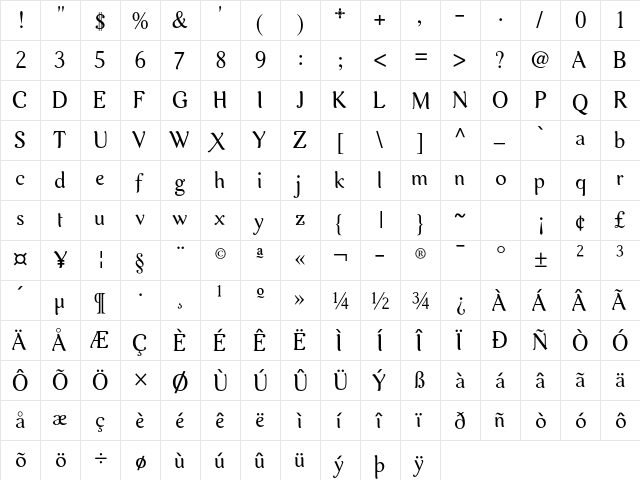
Aurelis ADF No2 Std Regular
| Foundry | Arkandis Digital Foundry. |
| Designer | Hirwen HARENDAL |
Design Context for Aurelis ADF No2 Std Typeface
Aurelis ADF No2 Std takes a measured approach to typography — its balanced proportions and neutral character make it a reliable workhorse for both digital and print work.